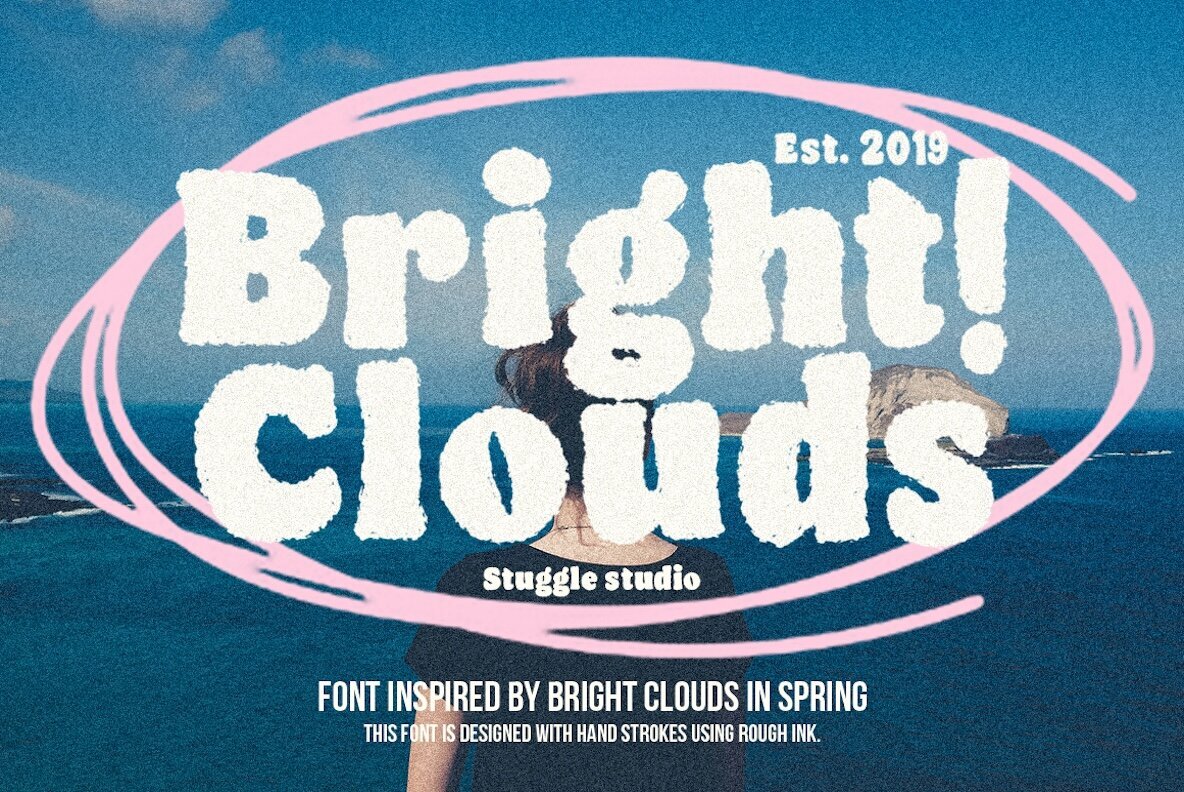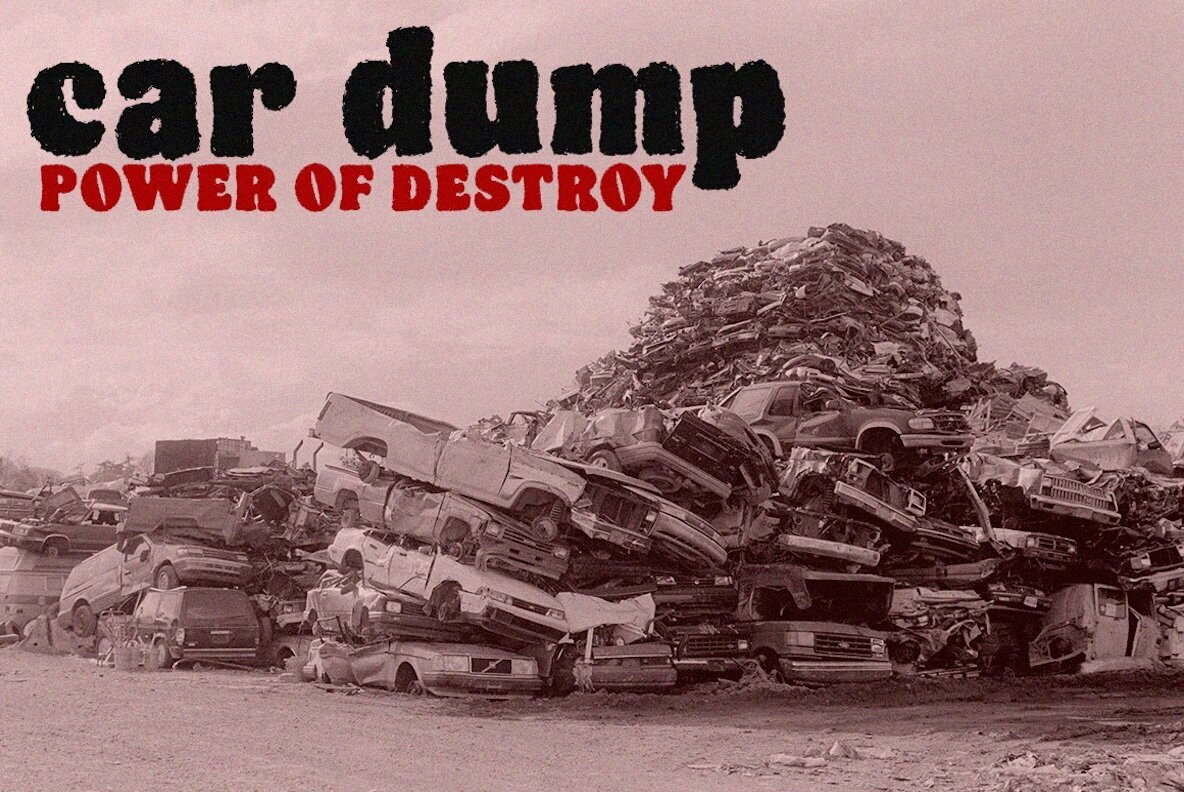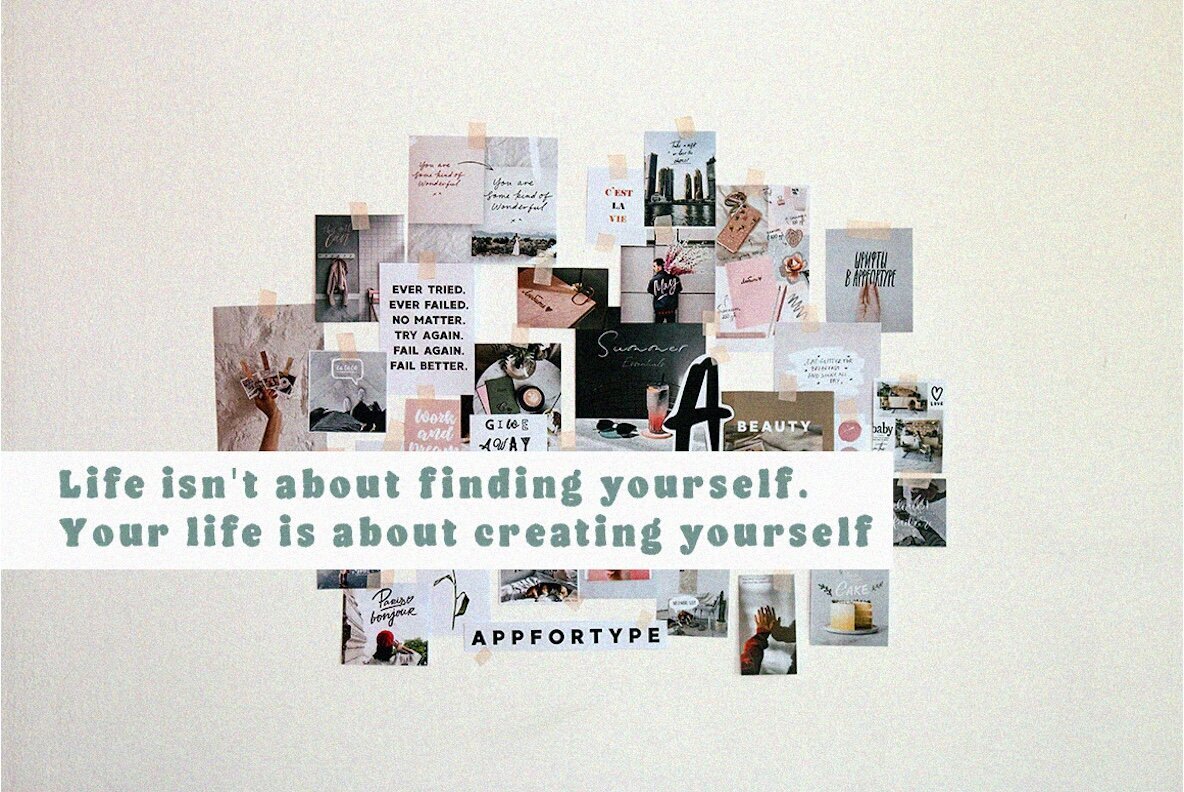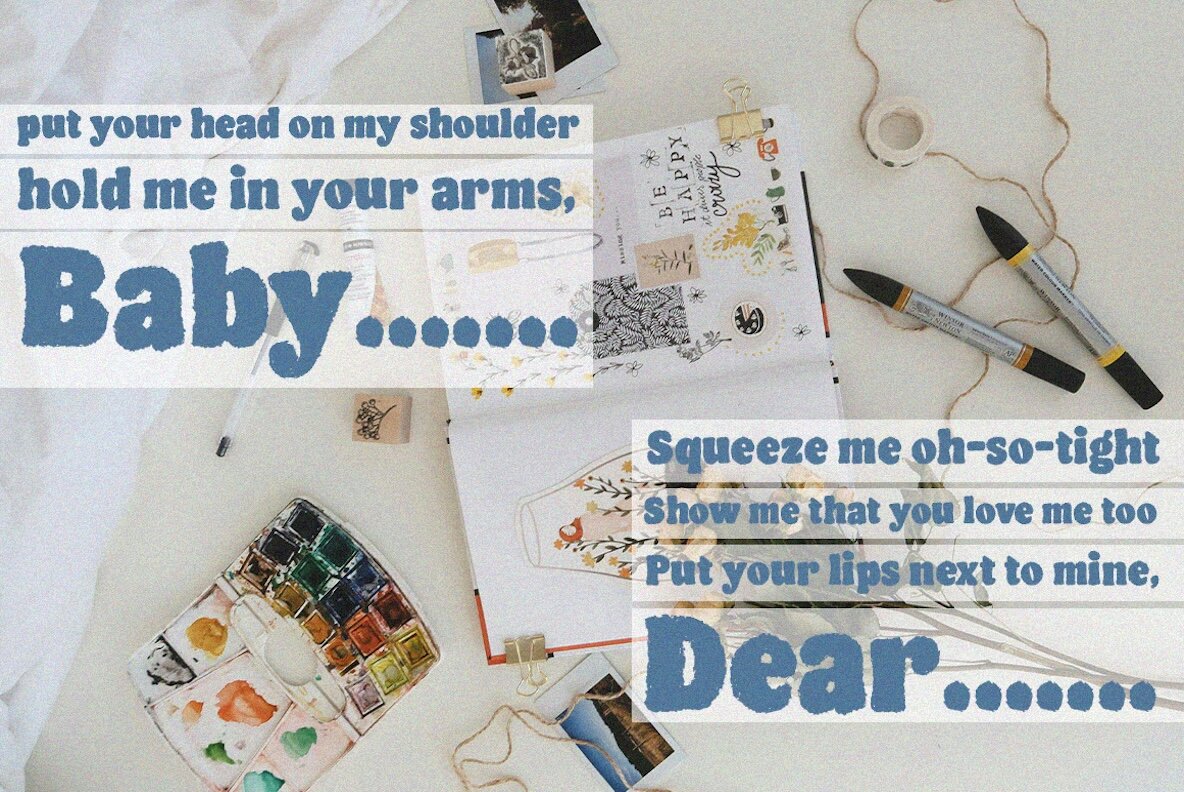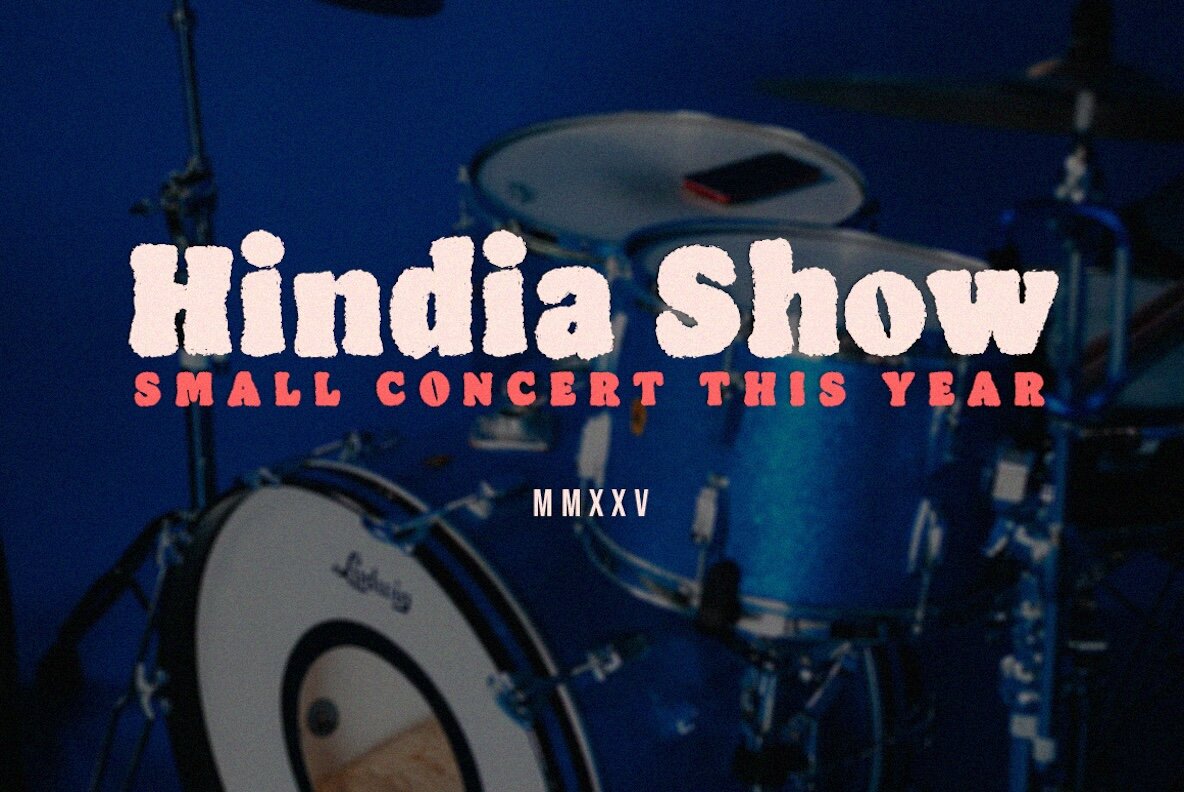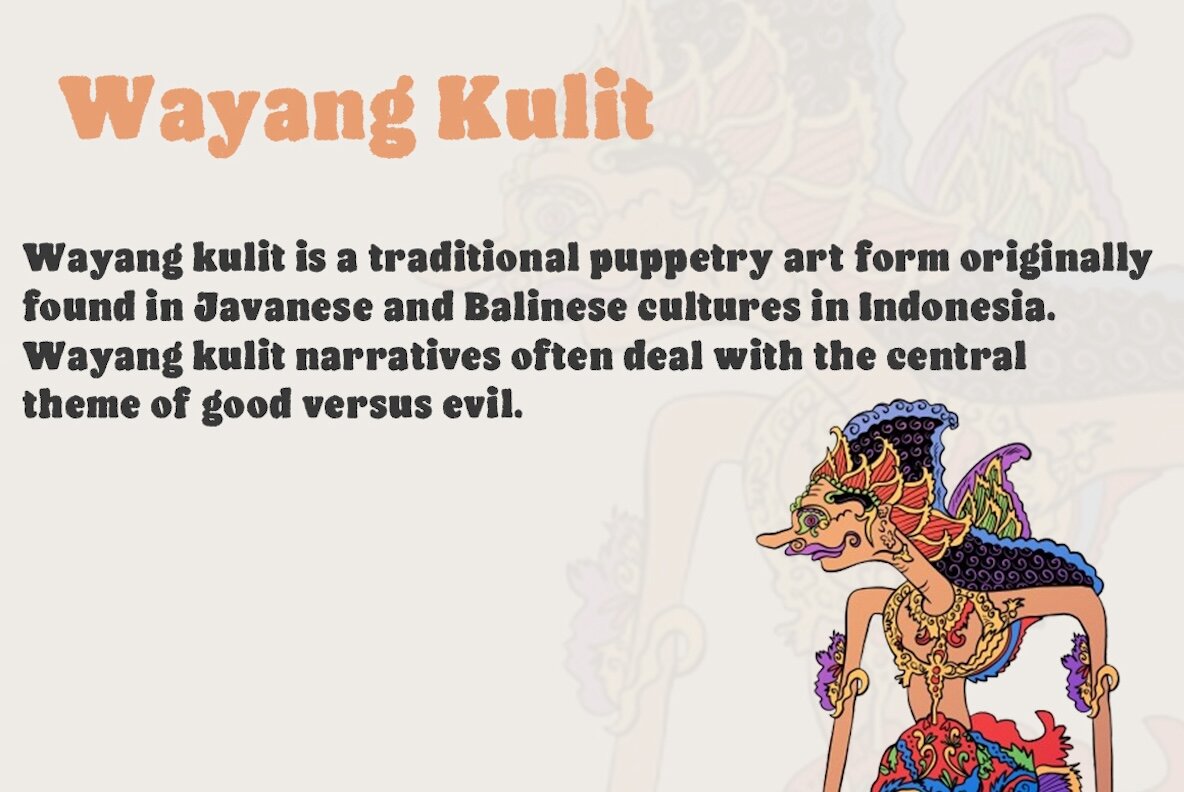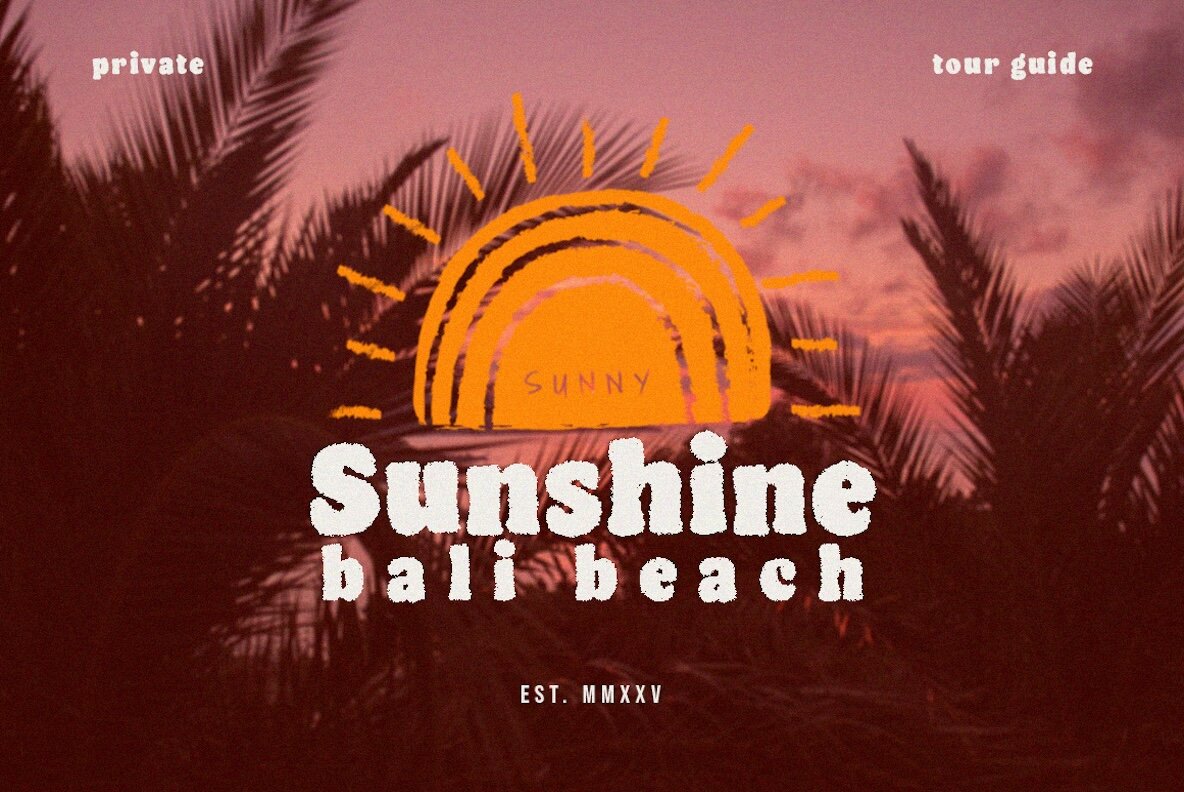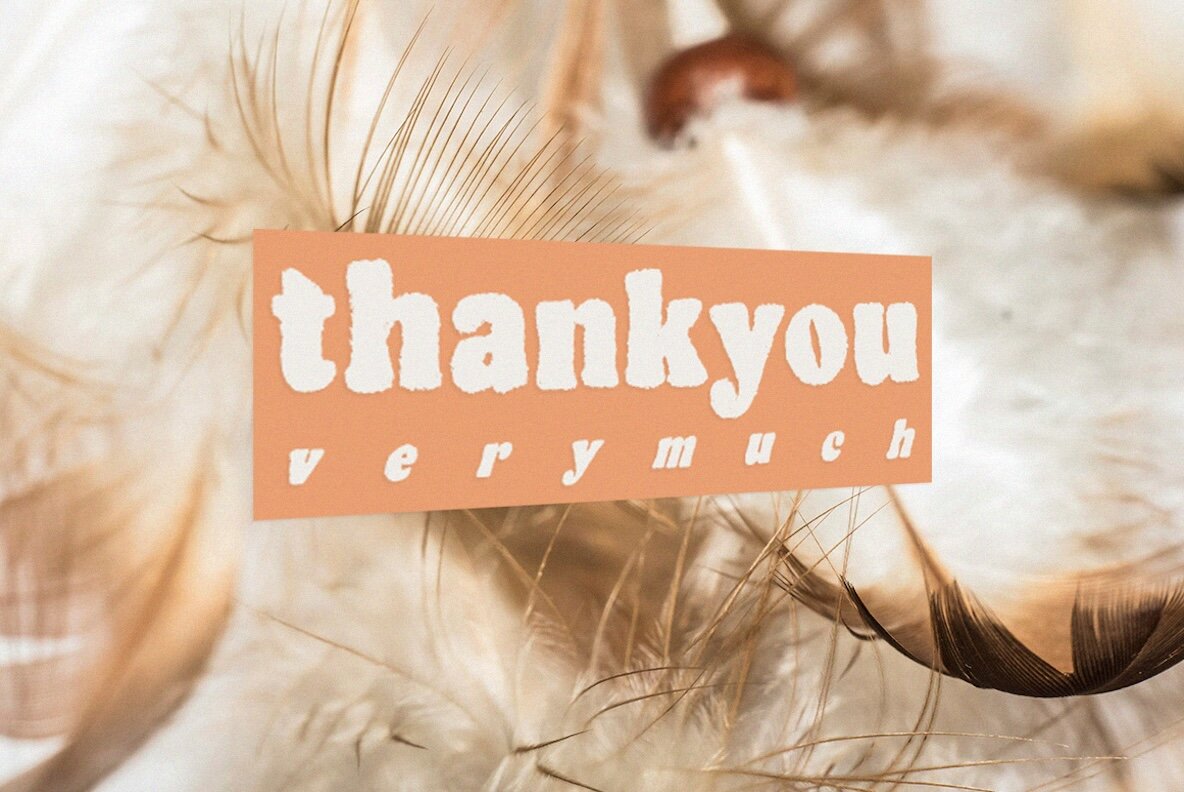
Bright Clouds Font
Bright Clouds is a vibrant display font designed for modern visual impact. Its bold, round letterforms give a cheerful and approachable look, reminiscent of a clear sky with soft white clouds overhead. This playful style stands out in event posters, large headlines, and brand logos, ensuring your message feels both fresh and memorable. The font features balanced proportions with subtle accents, offering a refined touch without sacrificing clarity. Whether you're building a brand identity, creating eye-catching advertisements, or looking for a font that brings energy to digital graphics, Bright Clouds adapts effortlessly to various creative projects.Bright Clouds Display Font